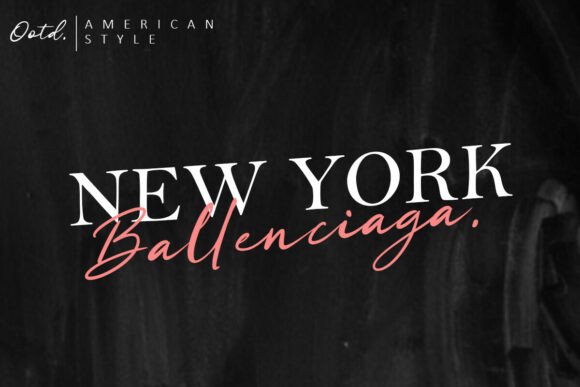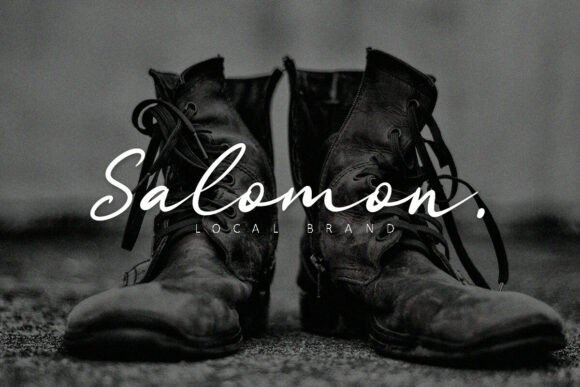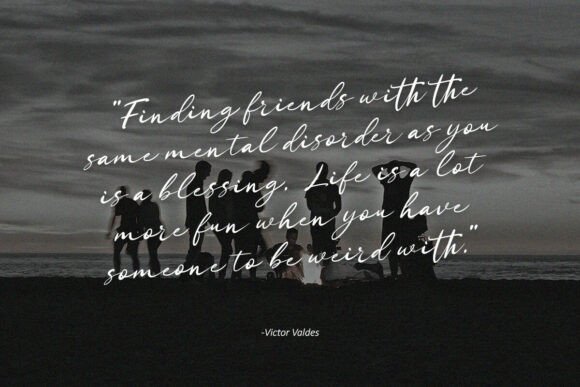
Introduction to Father Days Font
Elevate your designs with the authentic touch of Father Days.
This handwritten signature font captures the essence of a natural pen stroke, blending organic flow with a bold, sophisticated character Designed to feel personal yet professional, its sharp and elegant curves create a premium aesthetic that stands out in any composition.
Key Features of Father Days Font